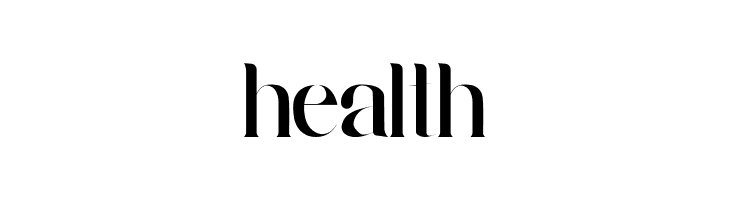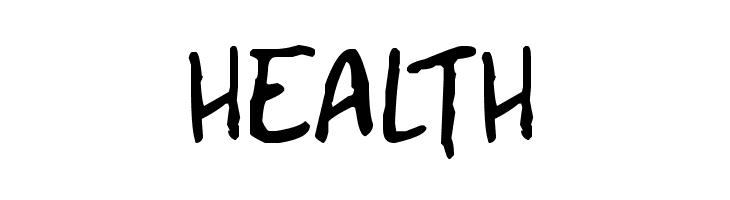
A sophisticated script font with flowing, interconnected letters and ornate flourishes.
A modern, high-contrast font with elegant serifs and geometric influences.
Elegant cursive script with flowing, handwritten style.
A playful, handwritten script font with a whimsical and fluid style.
A playful, handwritten font with rounded, consistent strokes.
A playful, hand-drawn font with bold, rounded characters and a whimsical style.
A fluid and elegant script font with a handwritten style.
A bold, handwritten font with a playful and informal style.
A playful, casual handwritten font with an informal, organic style.
A playful handwritten font with smooth curves and a casual, friendly style.